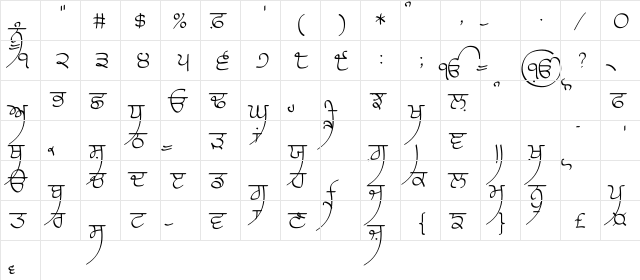
Raaj 3 Light Light
| Foundry | Paul Alan Grosse |
| Designer | Paul Alan Grosse |
Design Context for Raaj 3 Light Typeface
Raaj 3 Light offers clean, dependable letterforms without strong stylistic allegiance, making it a practical choice for designers who need flexibility. The delicate stroke weight brings airiness and refinement to layouts.